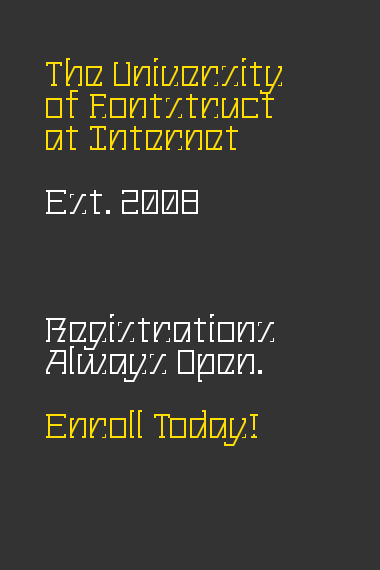
fs Squangular Flair
Love your solution for "s" and "g". Brilliant sample!
This works so well - very readable, yet so very individual.
(sorry to say this, but it's Fon
t
struct :p)
And Thanks, minidonut. Sample updated.